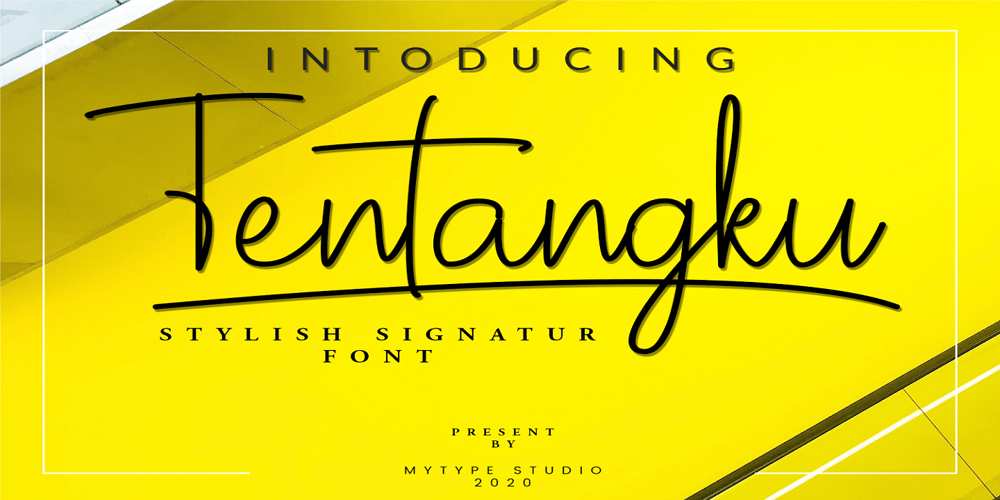
Tentangku Font Family was designed by Mhd Husaini and published by SimpleType Studios. Tentangku contains 1 styles and family package options. Tentangku Font is a new modern & fresh script with a handwritten and script style make this font looks elegant, natural, stylish and perfect for any awesome projects that need handwriting taste .would perfect for photography, watermark, social media posts, advertisements, logos & branding, invitation, product designs, label, stationery, wedding designs, product packaging, special events or anything that need handwriting taste.